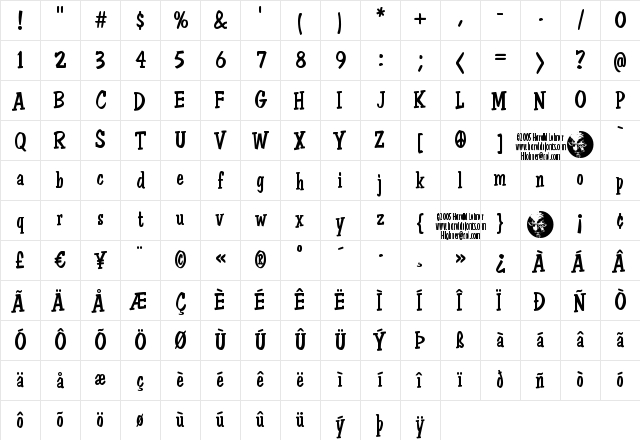
Don Semiformal Regular
Copyright: DON SEMIFORMAL computer font v1.0 © 2005 Harold Lohner "  " www.haroldsfonts.com A joke about the classic font "Dom Casual," which this is not.
Design Context for Don Semiformal
Don Semiformal is a composed and adaptable typeface that performs quietly and consistently across a wide range of design contexts.